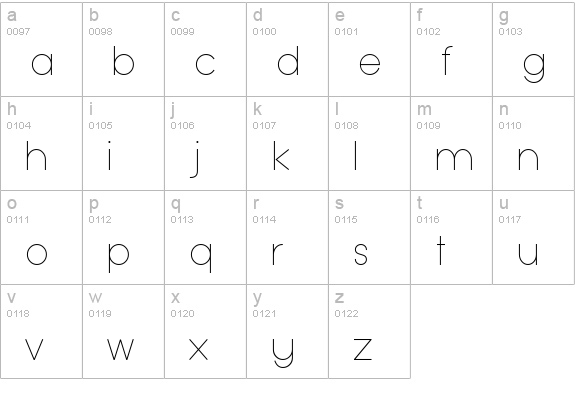
Typo Grotesk Thin Font Details
Typo Grotesk Thin is a delicate, low-contrast variant in the Typo typeface family \xE2\x80\x94 well suited to fashion editorial, minimal branding, and high-contrast display.
Typo Grotesk Thin font captures the essence of modernity and minimalism with its sleek and slender design. This font is the epitome of sophistication, offering a clean and crisp aesthetic that is perfect for any creative project. With its delicate and refined strokes, Typo Grotesk Thin font exudes elegance and simplicity. Its thin letterforms effortlessly convey a sense of lightness and grace, making it an ideal choice for branding, editorial design, and web applications. What sets Typo Grotesk Thin font apart is that it is not only visually stunning, but it is also free! Yes, you read that right. This incredible font is freely available to download at FontsMarket.com. Now, you can add a touch of sophistication to your designs without breaking the bank. Whether you're designing a logo, creating a magazine layout, or crafting a website, Typo Grotesk Thin font will elevate your design to the next level. Its versatility allows it to seamlessly adapt to various design styles and contexts, making it a must-have for any designer's toolkit. So why wait? Embrace the beauty of simplicity and download Typo Grotesk Thin font for free at FontsMarket.com today. Give your designs the refinement they deserve and let this font effortlessly transform your creative vision into reality.